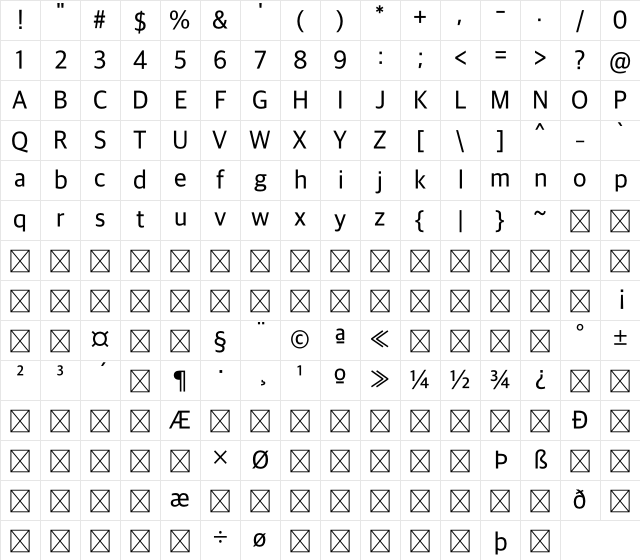
MP SDGothicNeo1Ko2 Medium Free Font
MP SDGothicNeo1Ko2 Medium
Foundry: Sandoll Communications Inc.
Designer: Sandoll Communications Inc.
Design Context for MP SDGothicNeo1Ko2
MP SDGothicNeo1Ko2 takes a clean, functional approach - its unadorned letterforms prioritise legibility and work reliably across screen and print environments.